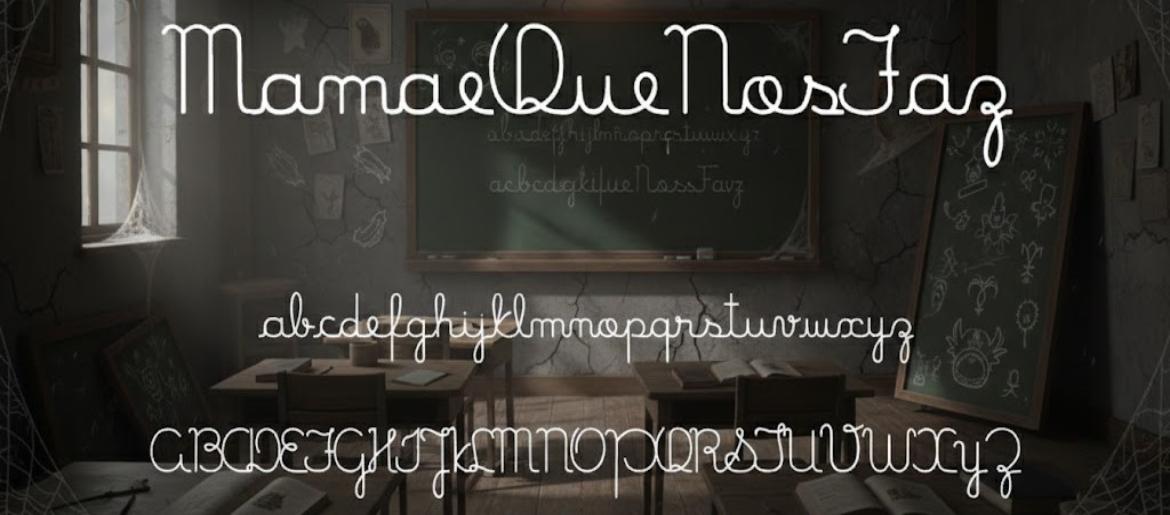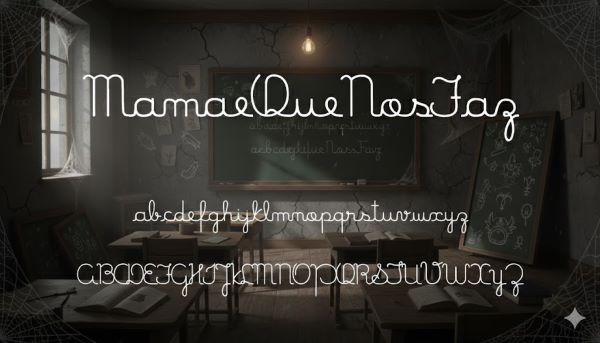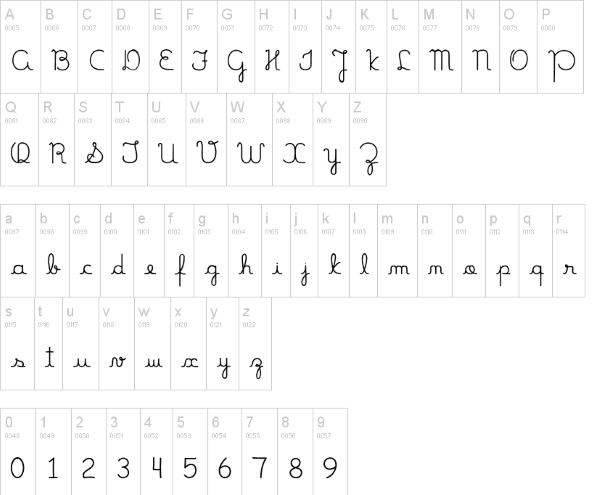
Mamae Que Nos Faz Font
Mamae Que Nos Faz Font is a decorative display typeface with a warm, expressive personality. Its playful and handcrafted letterforms create an emotional, friendly tone, making it ideal for quotes, posters, social media graphics, and creative designs. This font brings character and charm, helping messages feel personal, joyful, and visually engaging.
➤ Font Name: Mamae Que Nos Faz
➤ Designer: Rafael Pereira
➤ Style: Decorative